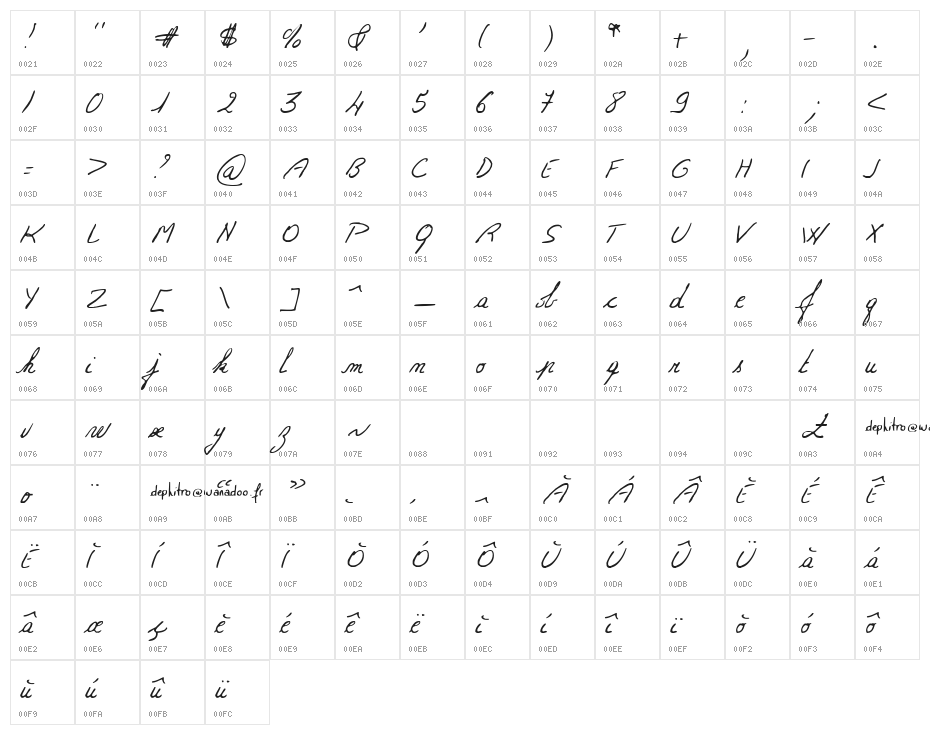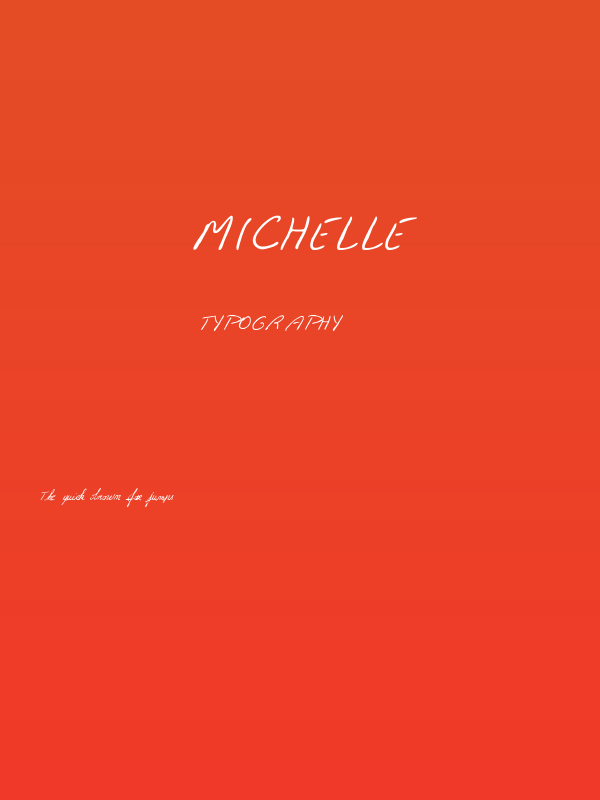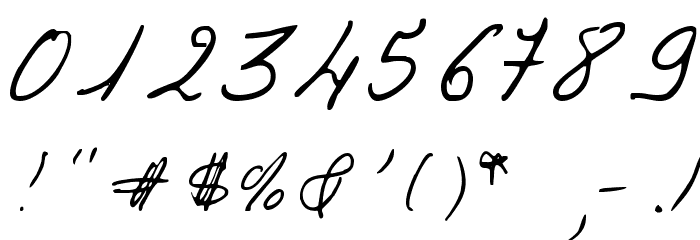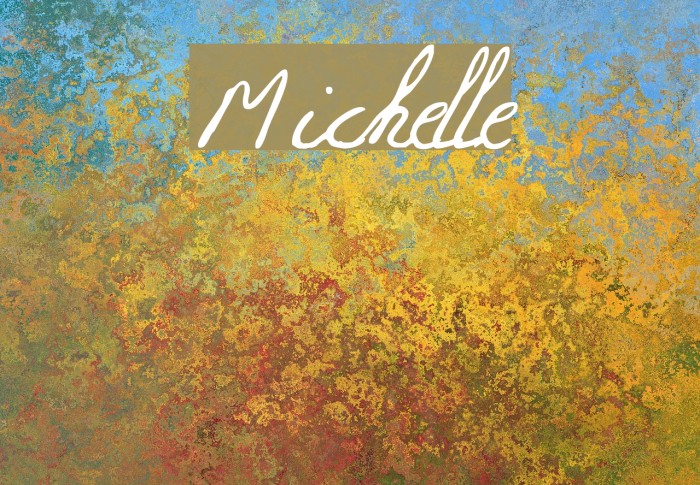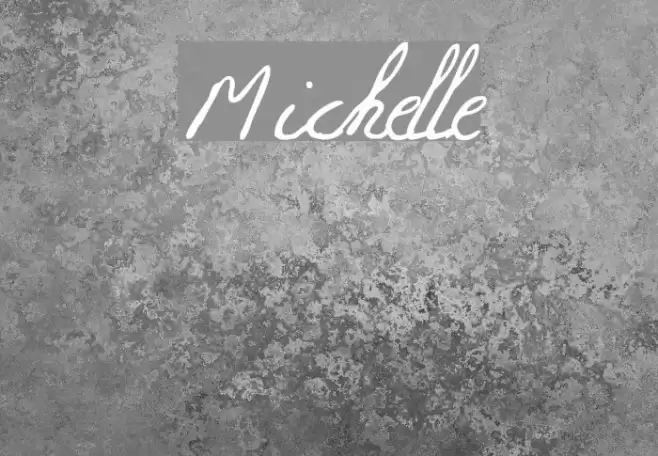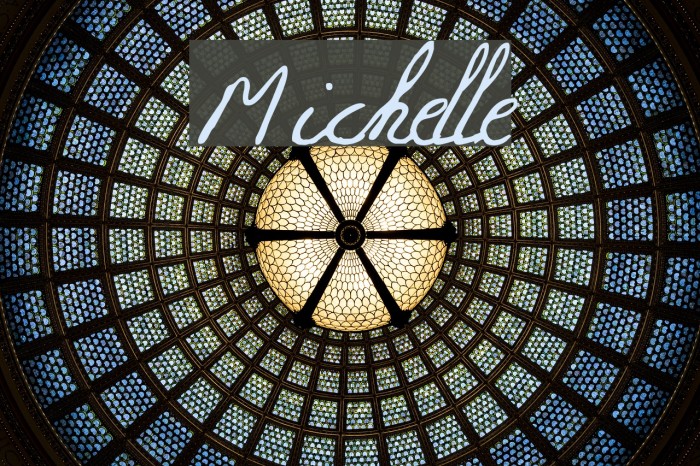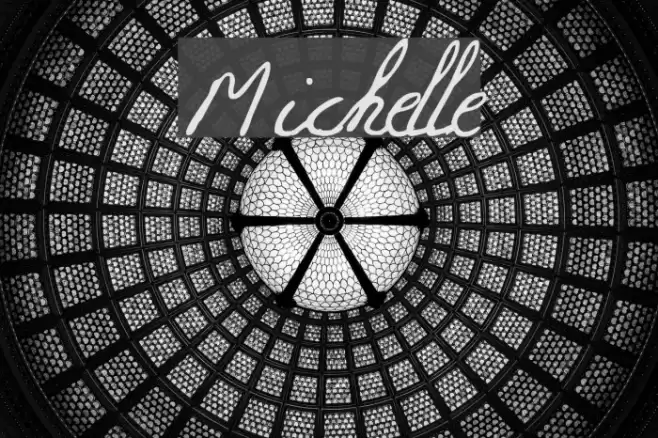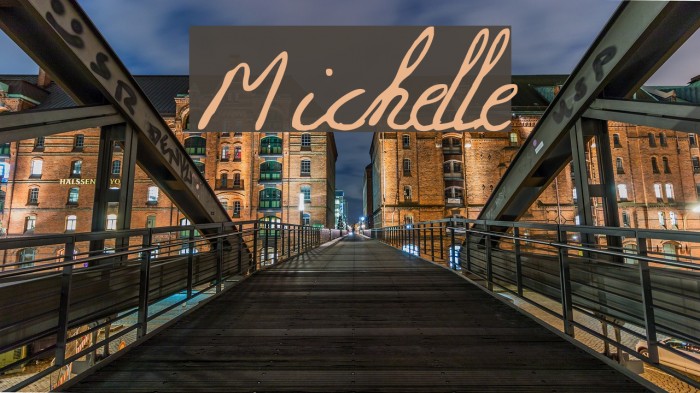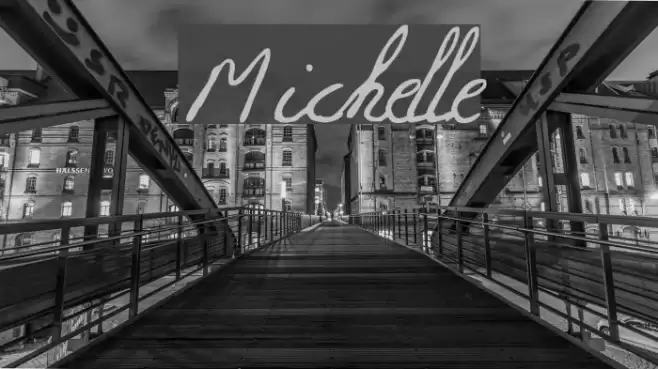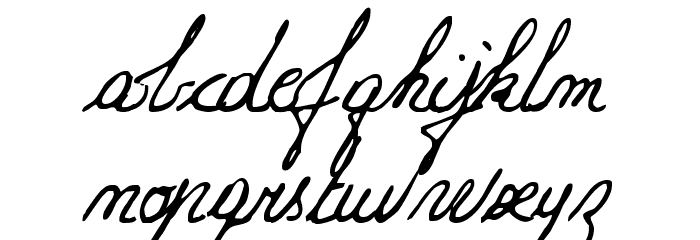
Michelle Font
| 用途 | Logos, Invitations, Personal Correspondence |
| おすすめプロジェクト | Ideal for wedding invitations, personal letters, branding for luxury products, and any design that requires a personal, elegant touch. |